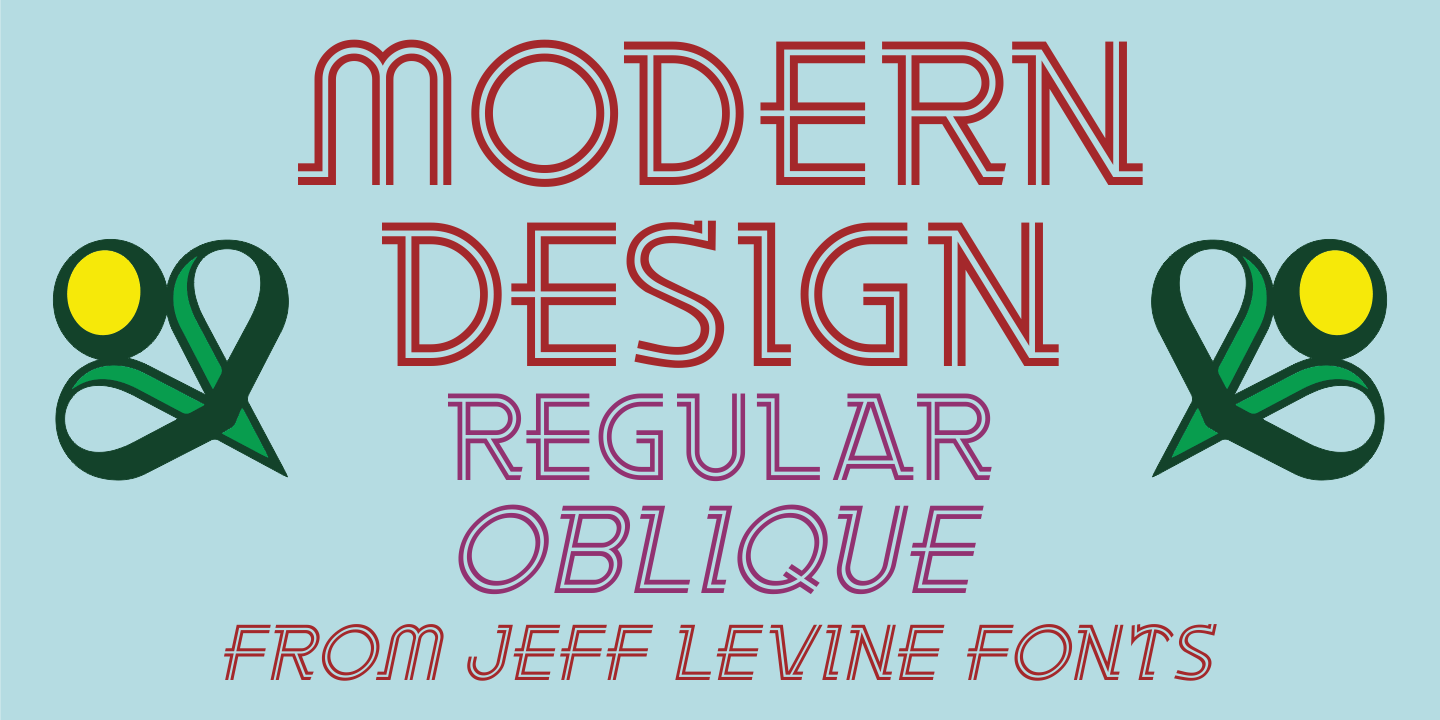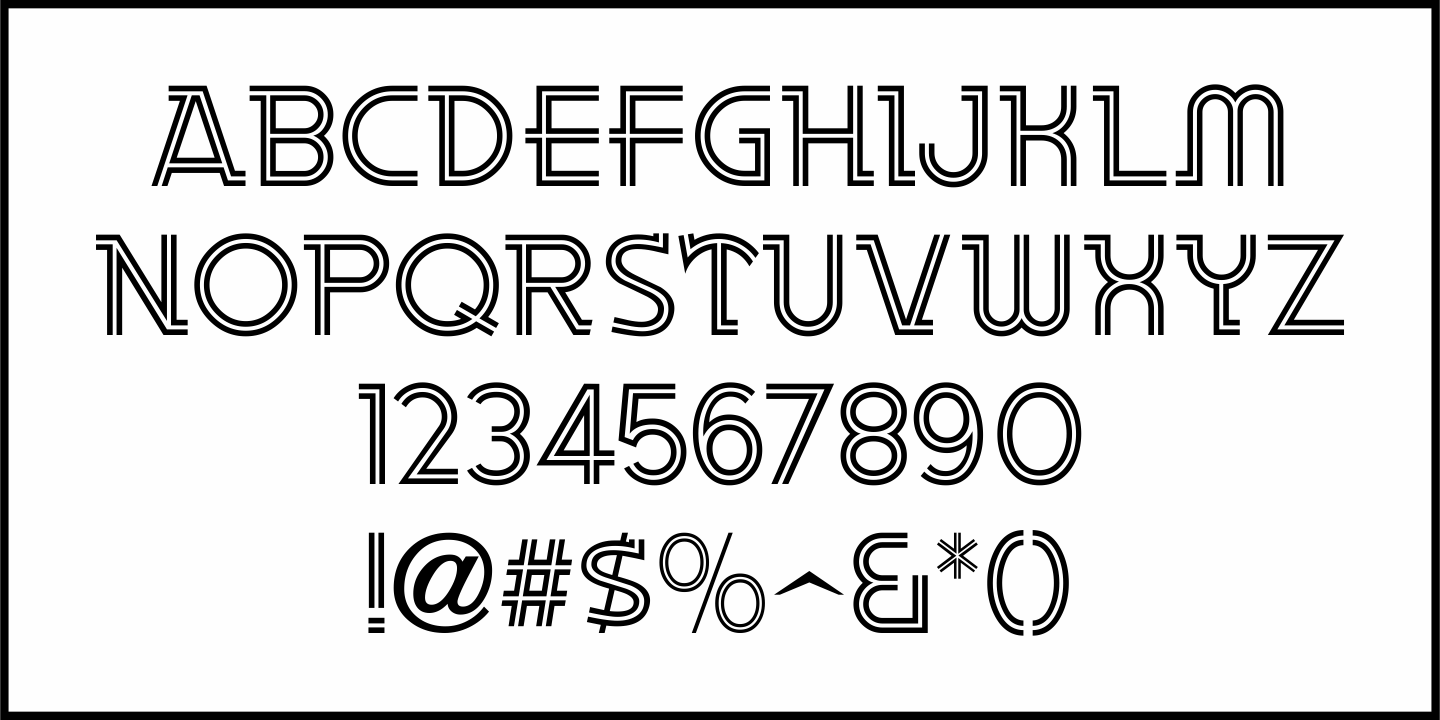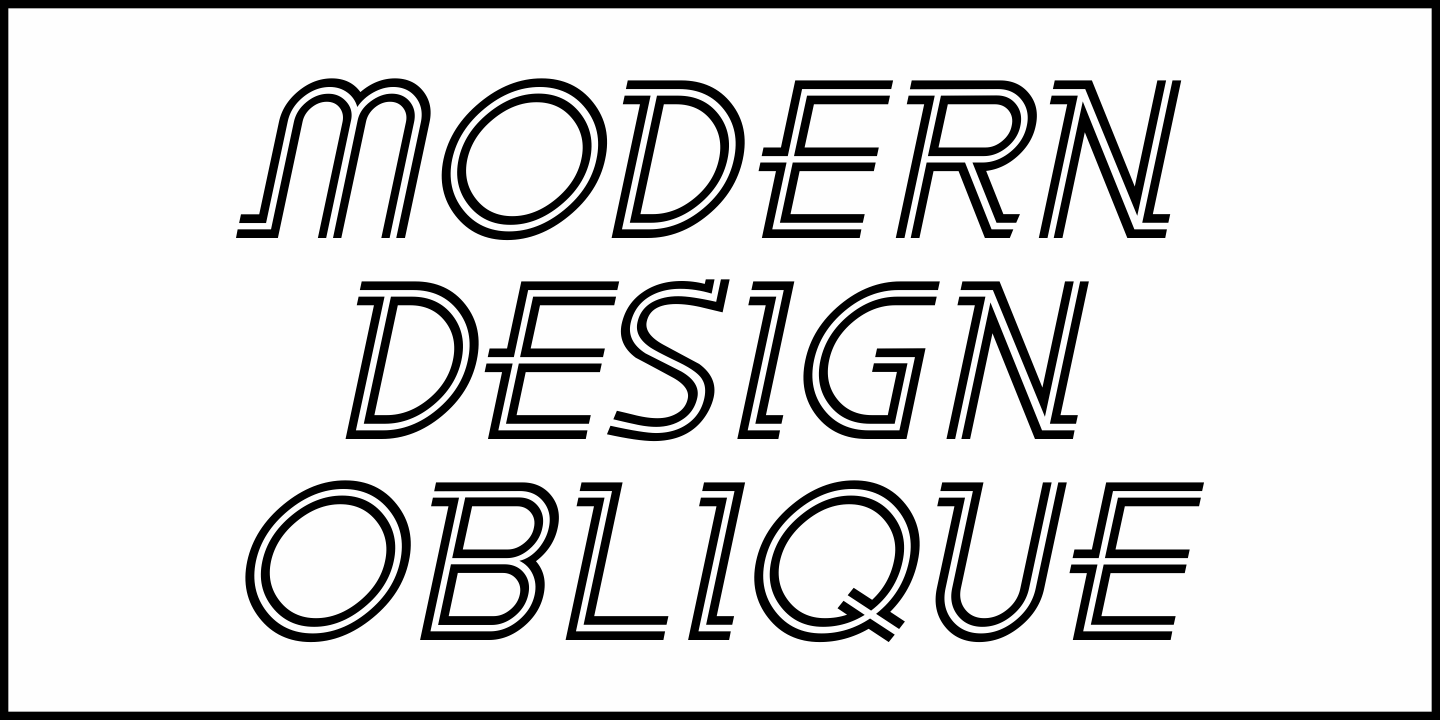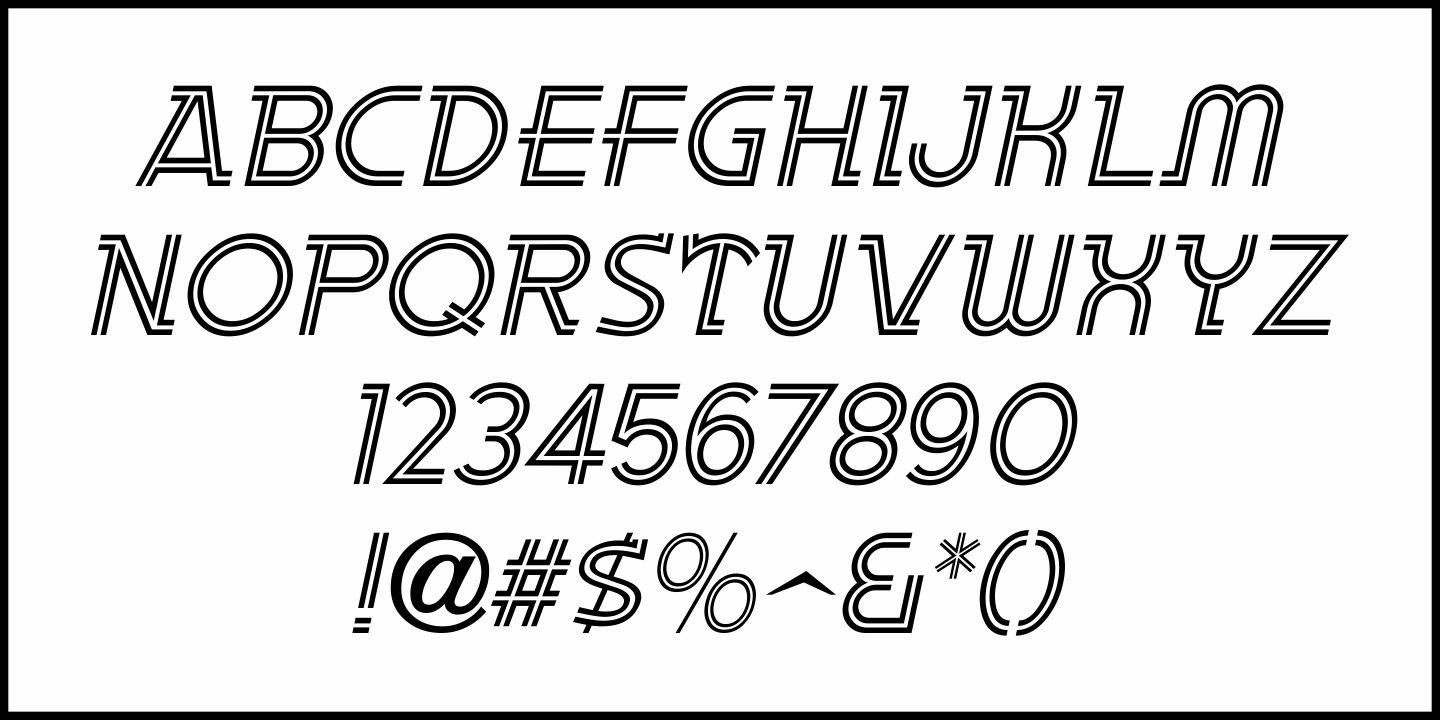
Modern Design
Hand lettering for a comical blurb on the cover of the 1938 edition of Film Fun provided the inspiration for Modern Design JNL, which is available in both regular and oblique versions.
This dual line type design is a sans serif with some serif influences.